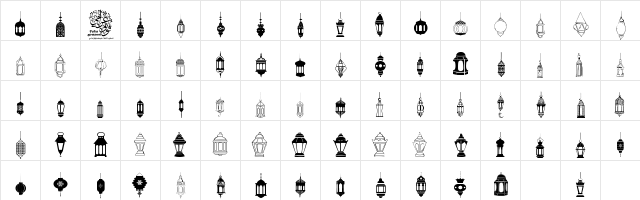
fotograami - lamp islamic Regular
Design Context for fotograami - lamp islamic Typeface
fotograami - lamp islamic is a composed and adaptable typeface that performs quietly and consistently across a wide range of design contexts.